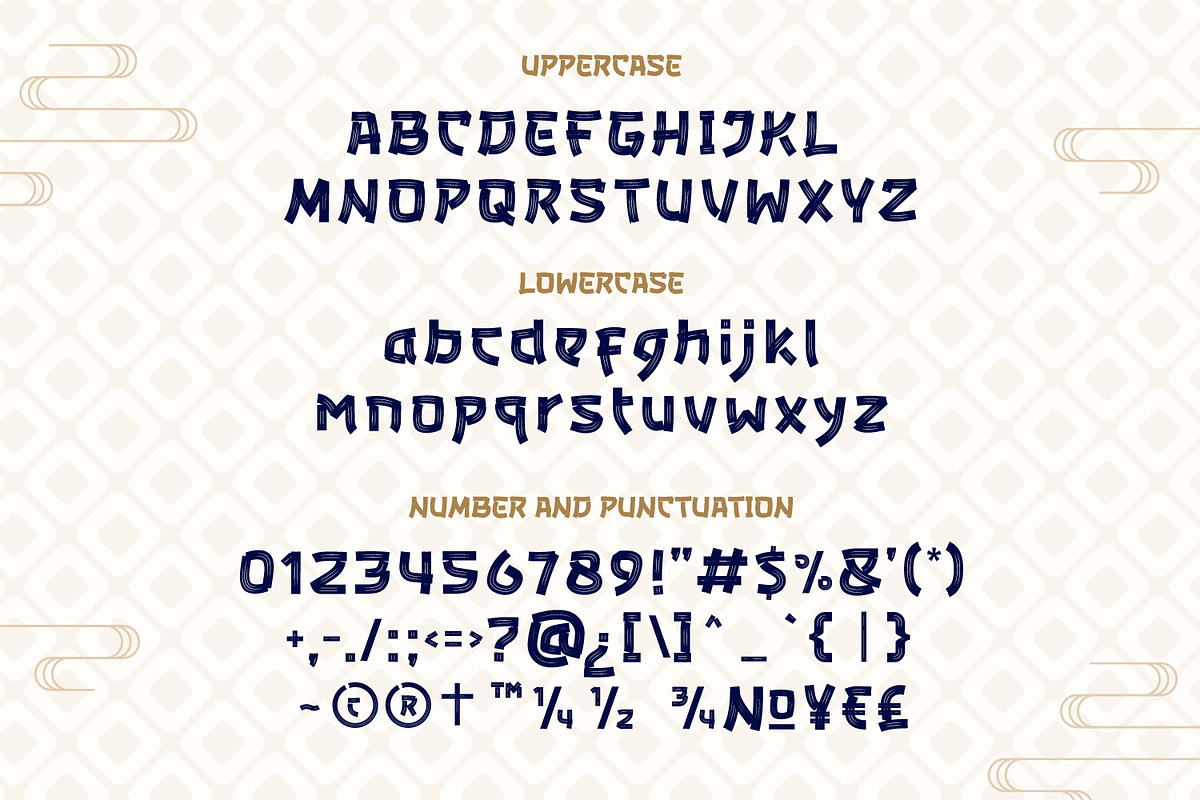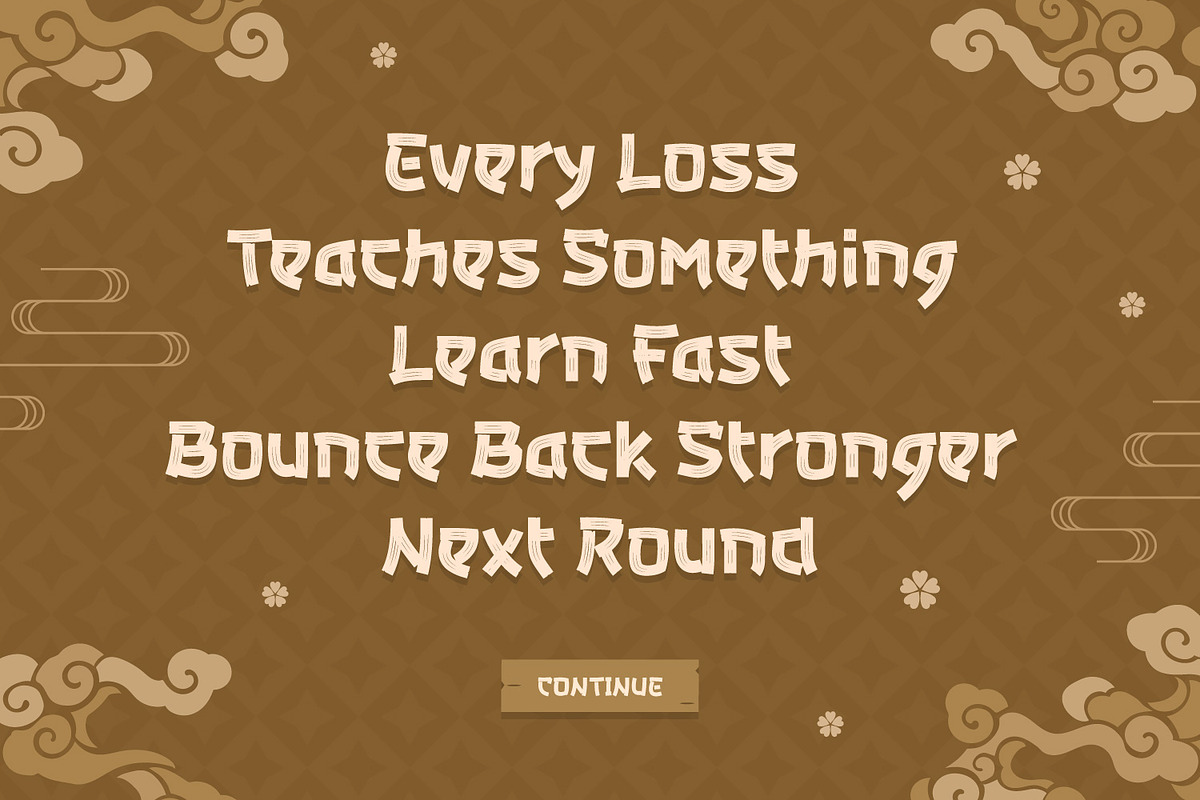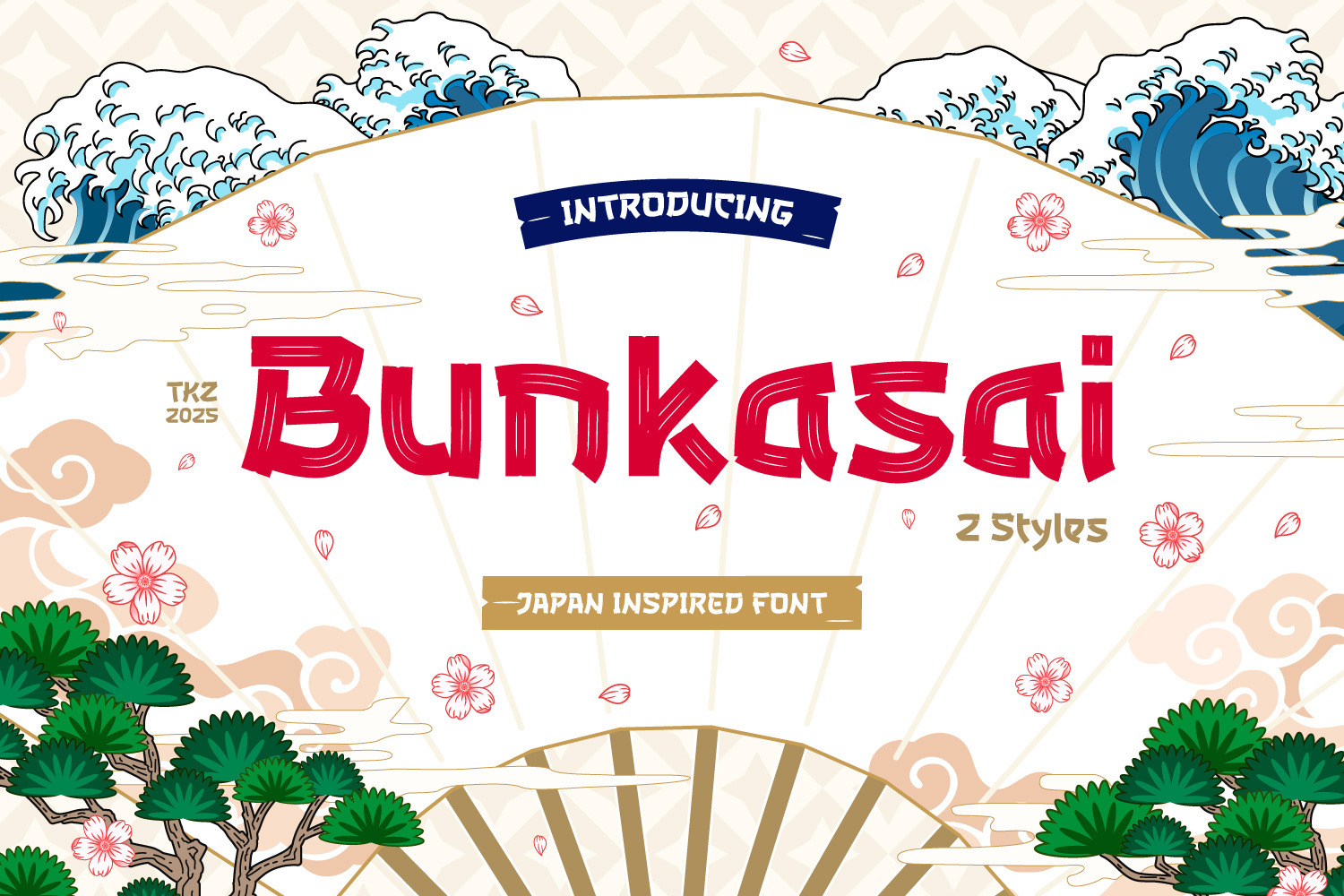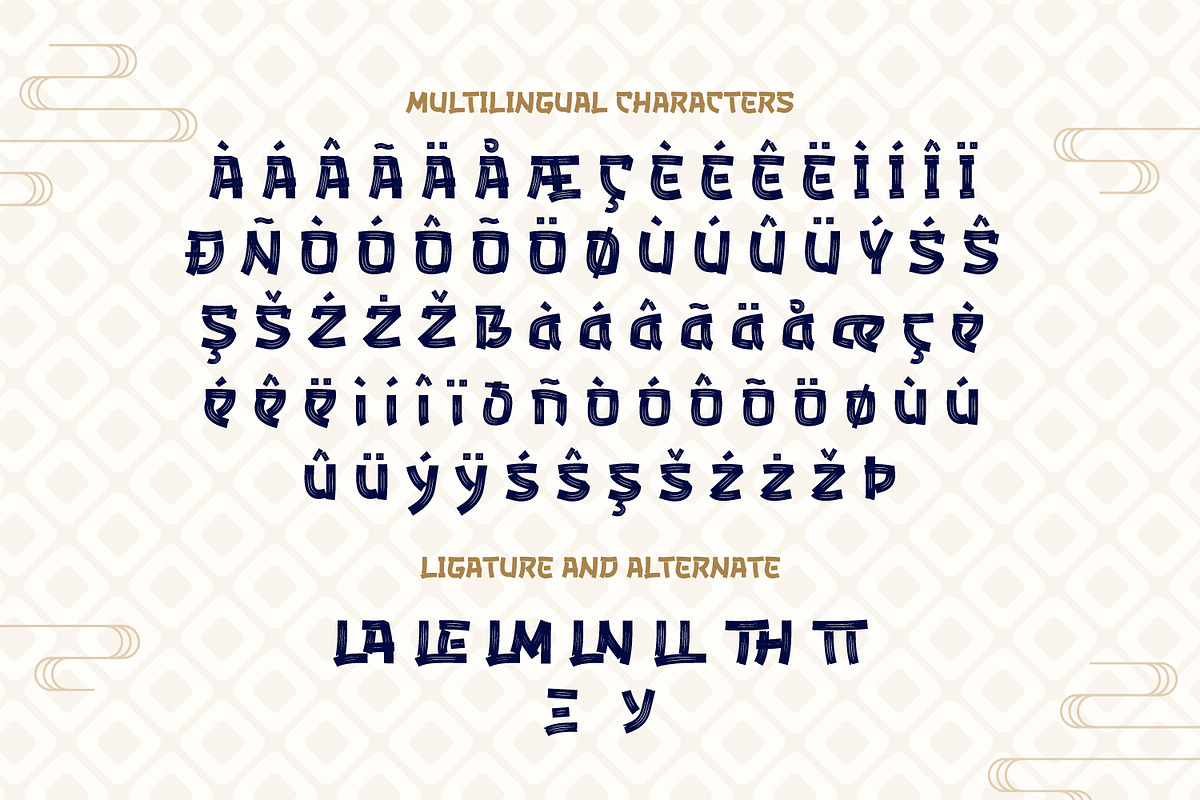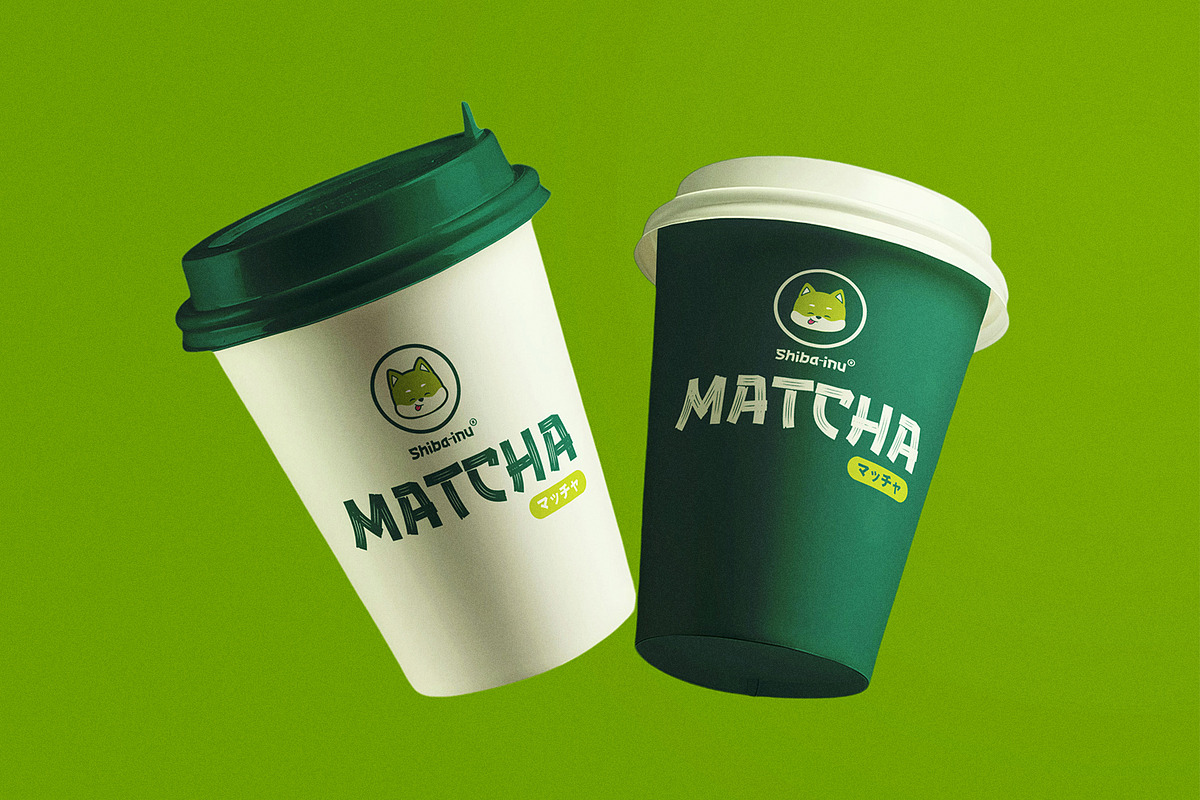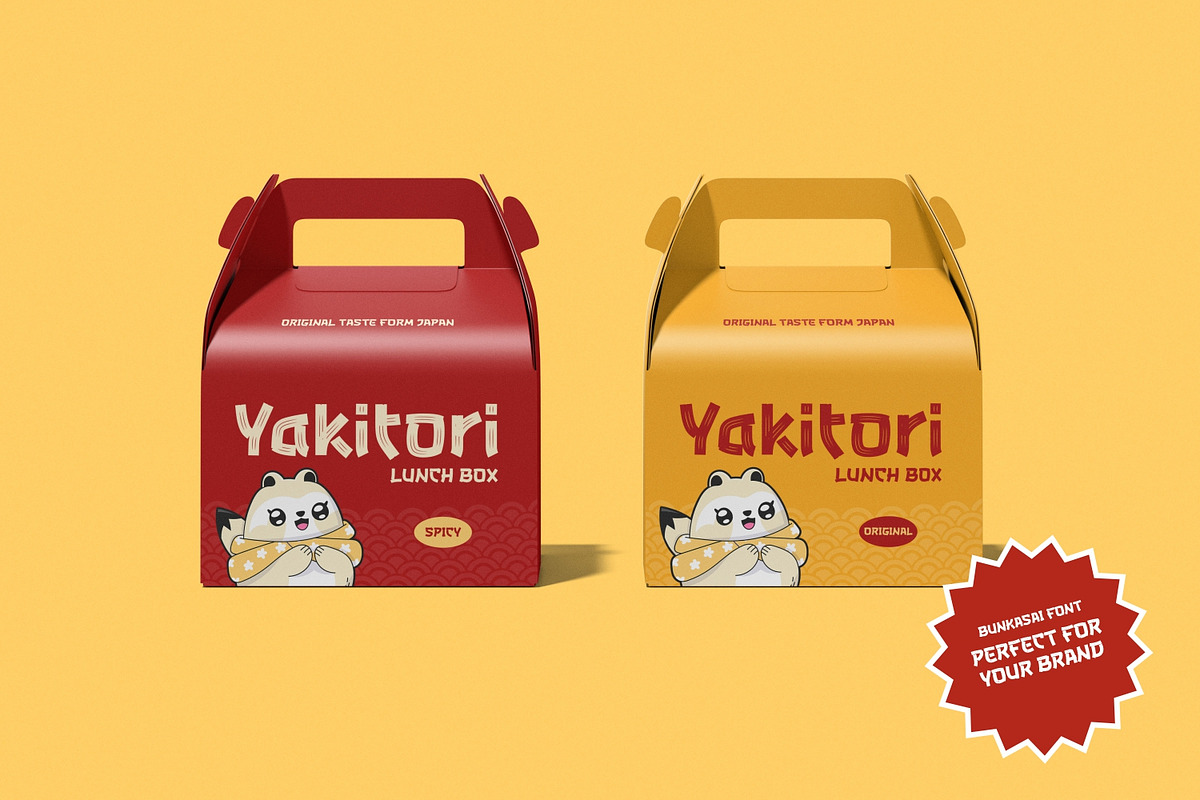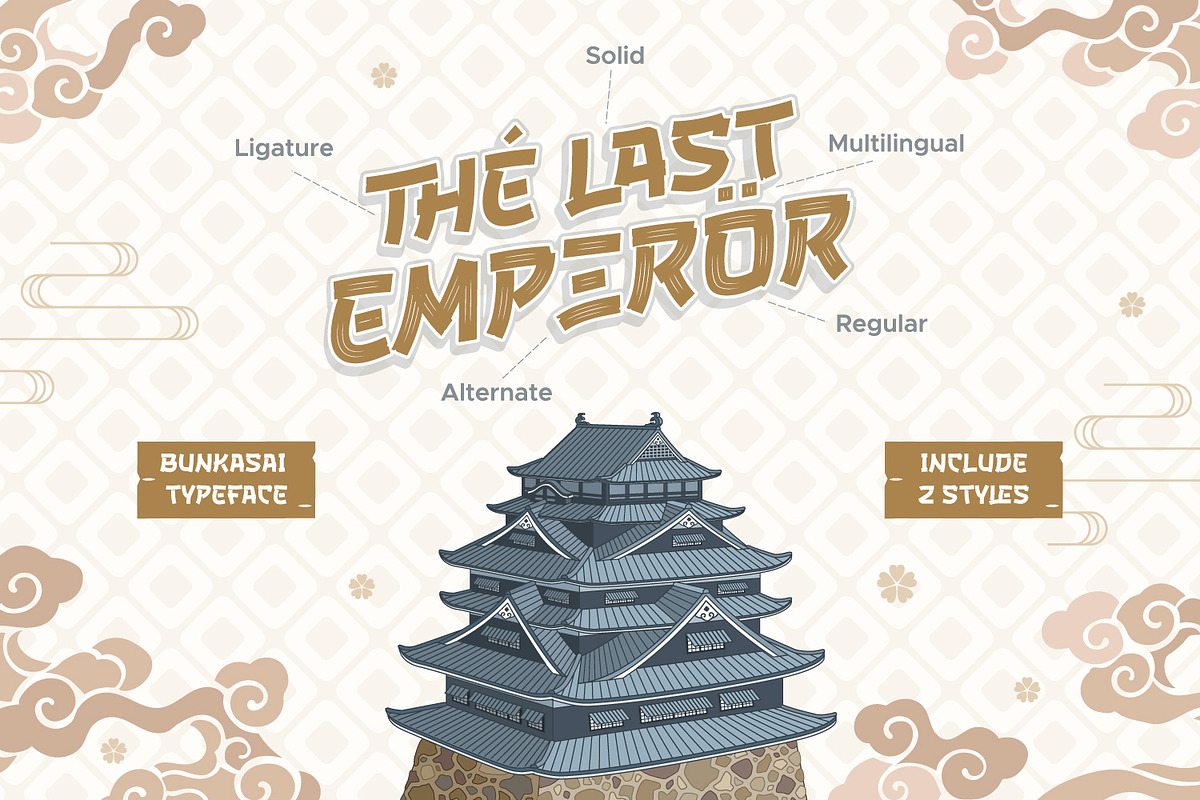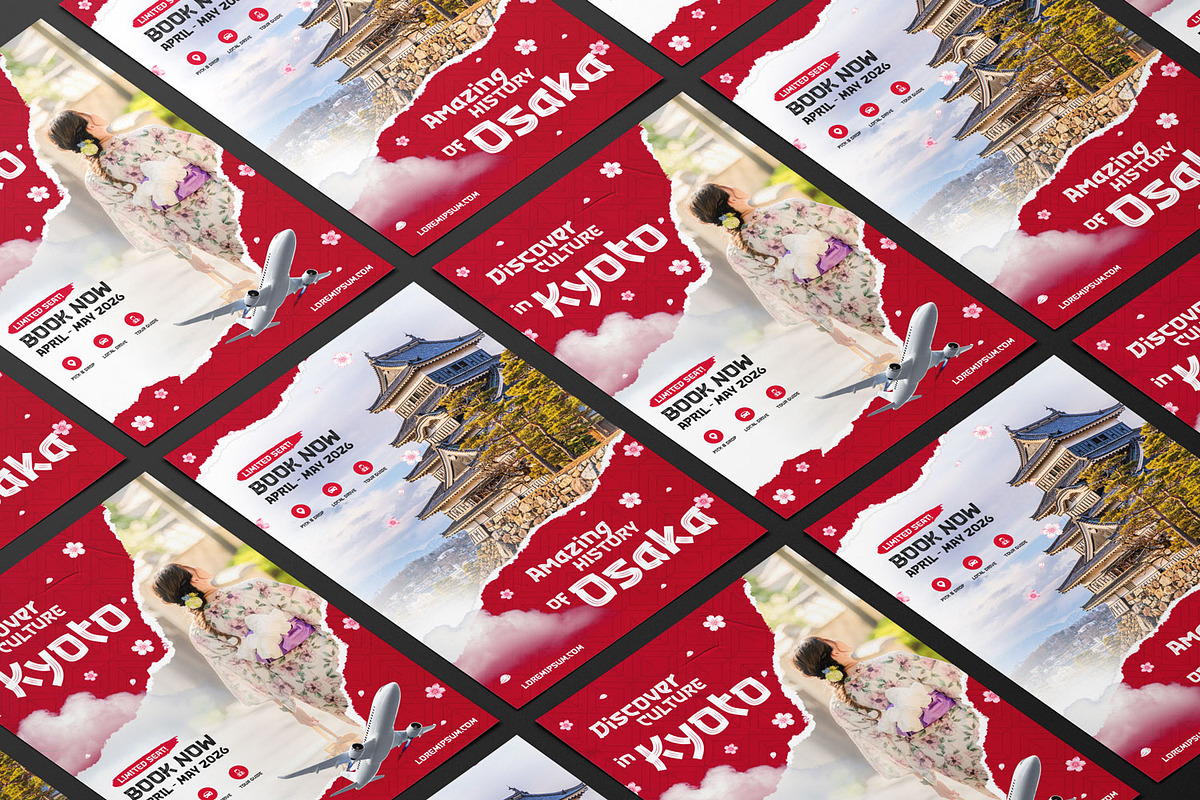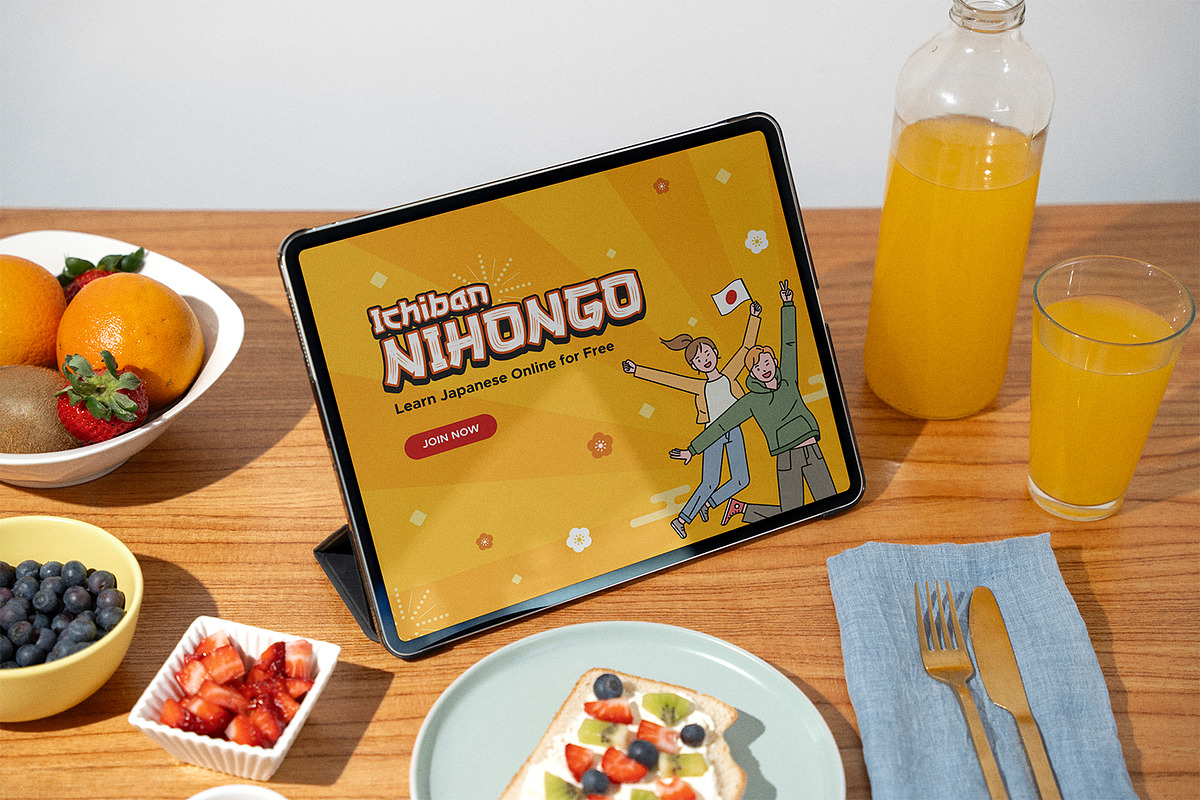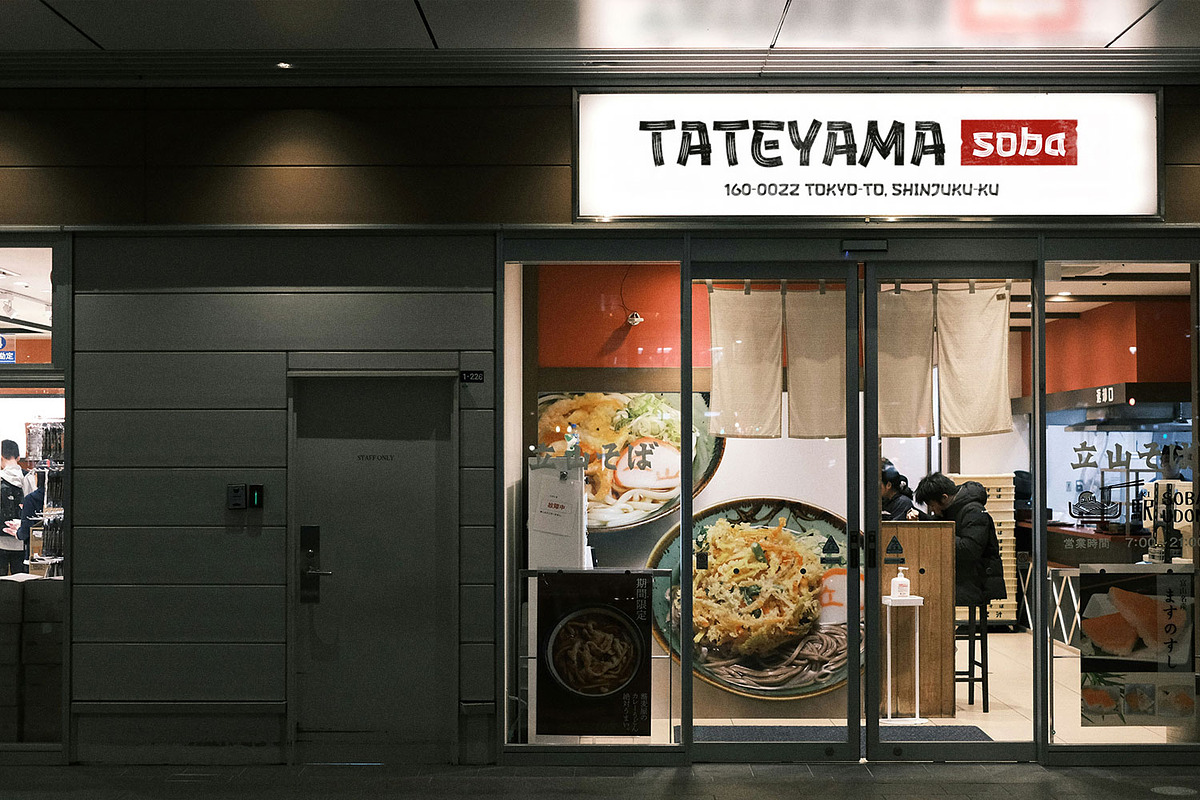
Bunkasai - Japan Inspired Font
Bunkasai is a sleek, Japan-inspired display font featuring a unique bamboo-like brush stroke texture that captures the elegance of Asian design. Its handcrafted style adds a natural and artistic touch, while the included solid version offers a clean and bold alternative for versatile use.
Perfect for logos, branding, book covers, posters, game titles, movie logos, and apparel, Bunkasai brings authentic Japanese vibes and modern sophistication to any creative project.
Opentype Ligatures